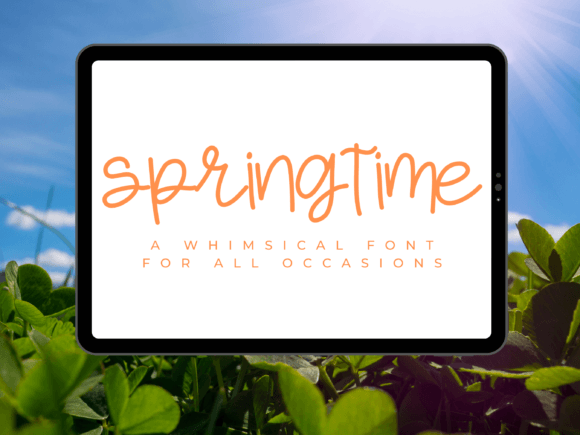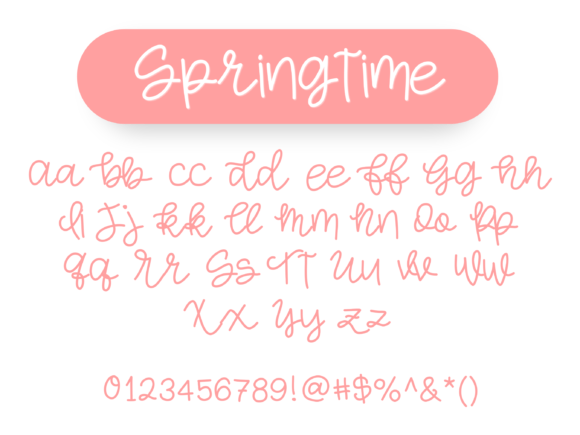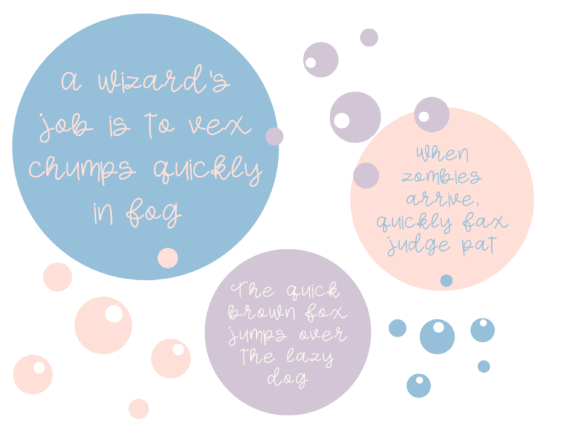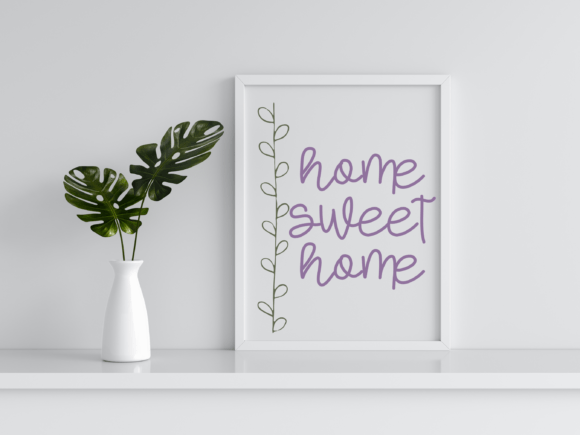
Springtime Font: A Cute Handwritten Script for Cricut & DIY Projects
About the Springtime Font
From logos to headlines, the Springtime Font is the perfect choice for making a lasting impression. Springtime – A handwritten font, script font, doodle font, or school font. A neat and clean modern font for note-taking, greeting cards, and more! Use for embroidery, Cricut, Goodnotes, Procreate, etc.
You can use this font in various projects.
– Note-taking
– Greeting Cards
– Branding
– Posters
– Physical Products like mugs, t-shirts, etc.
– Decorations
– Anything you like!
Springtime Font Usage Examples
Springtime Font Example